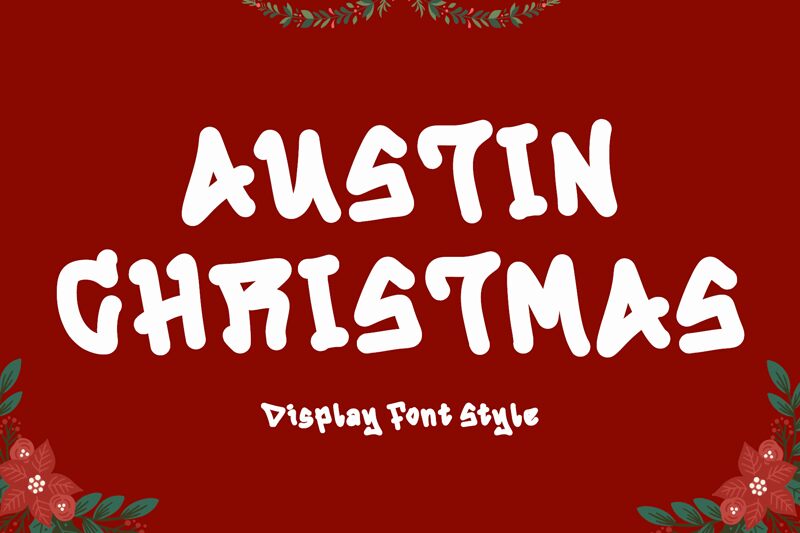
Austin Christmas font is one of Yoga Letter’s free font releases that is a perfect addition to any holiday project. As its title suggests, this graffiti font is inspired by Christmas and its festivities. However, the font has applications beyond this theme and can be suitable for other seasons and events. In addition to its unique graffiti style, the font has organic, casual, decorative, and informal elements. Check out its stylish and playful characters.
Create heartwarming holiday giveaways in the form of wrapping or packaging and greeting cards. Austin Christmas is also appropriate for logos or identity branding and design projects for Christmas special events like popup markets. This is in addition to titles and cover layouts for art covers, magazines, books, posters, and all sorts of printed and digital displays.